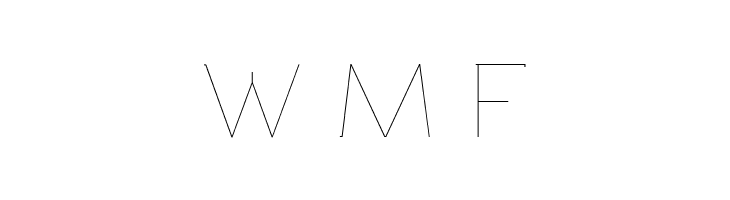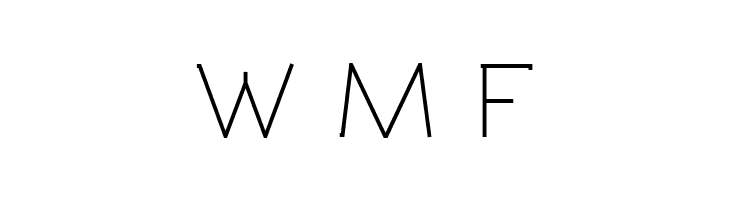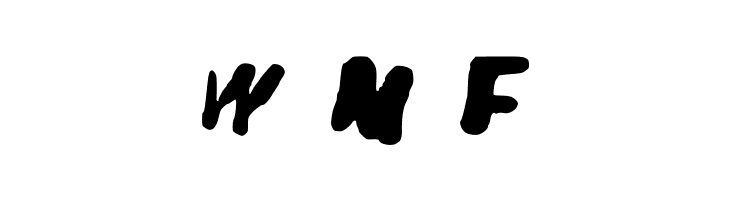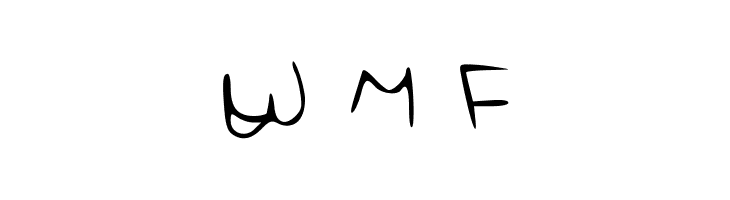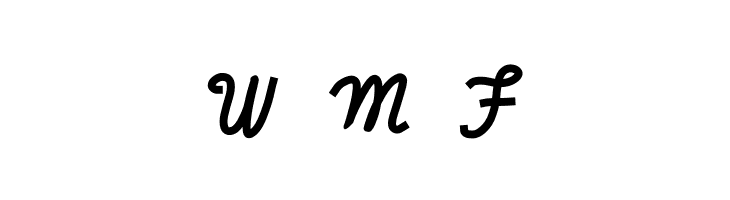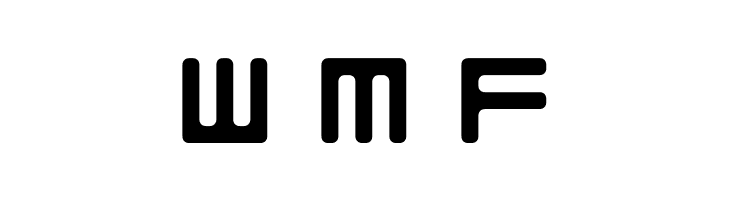
A playful, handwritten font with fluid, connected letterforms and a whimsical style.
A bold, geometric display typeface with a modern and edgy style.
A playful, hand-drawn font with bold, rounded characters and a whimsical style.
A playful, bold font with a hand-drawn, whimsical style.
A playful, casual handwritten font with dynamic strokes.
A playful, handwritten font with a whimsical and casual style.
A bold, modern sans-serif font with clean lines and consistent stroke width.
A bold, modern sans-serif font with excellent legibility and balance.
A modern, geometric sans-serif font with clean lines and uniform strokes.
A modern, geometric sans-serif font with uniform stroke width and excellent readability.
A sleek, modern font with clean, geometric lines and a minimalist aesthetic.
A modern, thin-lined font with a minimalist and elegant style.
A modern, clean font with thin, geometric strokes and high readability.
A clean, geometric sans-serif font with a modern and minimalist design.
A modern, geometric sans-serif font with clean lines and balanced spacing.
A modern, geometric sans-serif font with clean lines and balanced proportions.
A minimalist, ultralight font with clean, geometric lines and consistent spacing.
An ultralight, minimalist font with clean lines and modern elegance.
A modern, geometric font with bold, rounded characters and a futuristic appeal.
A modern, bold font with rounded strokes and a playful, dynamic style.
A bold, dripping graffiti-style font with an edgy, urban aesthetic.
A playful, handwritten script font with connected letters and a bold presence.
A whimsical, hand-drawn font with playful, irregular shapes and varying stroke widths.
A modern, artistic font with sharp angles and smooth curves.
A modern, elegant font with sharp angles and smooth curves.